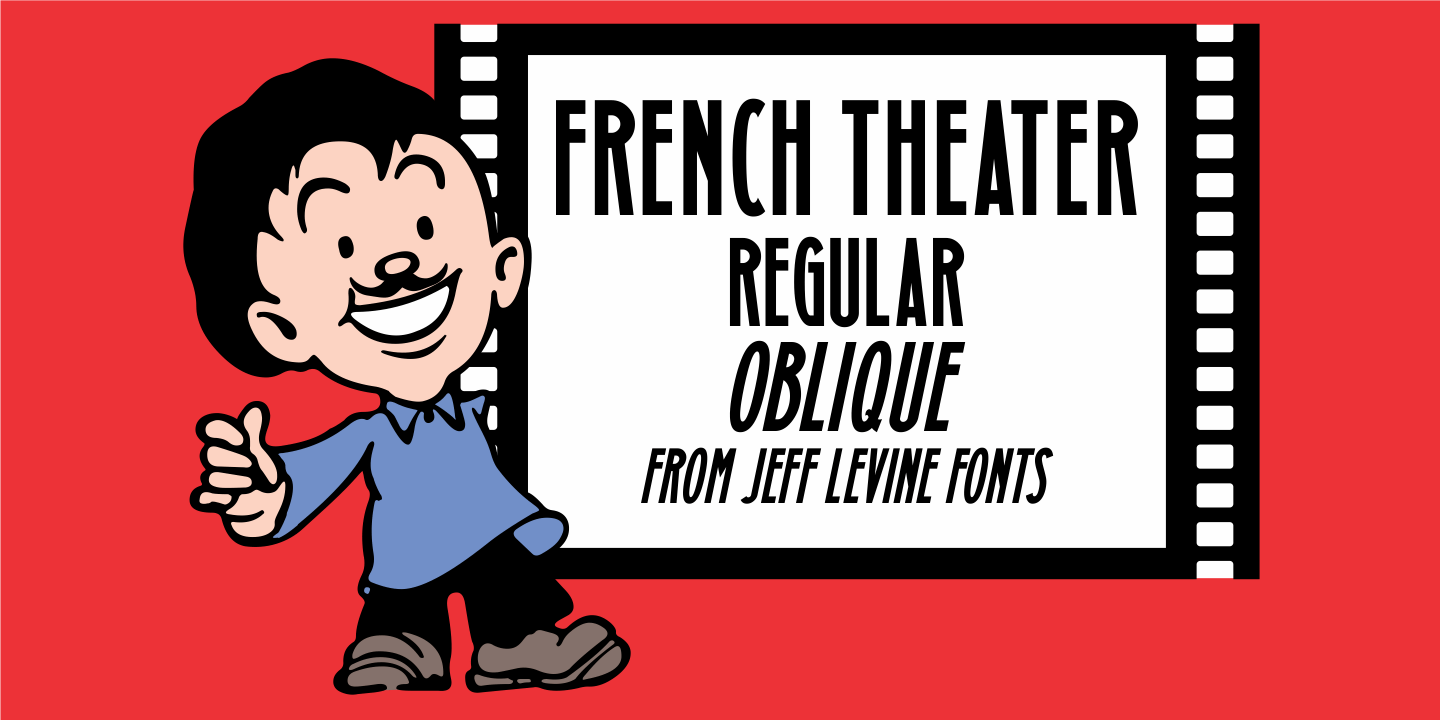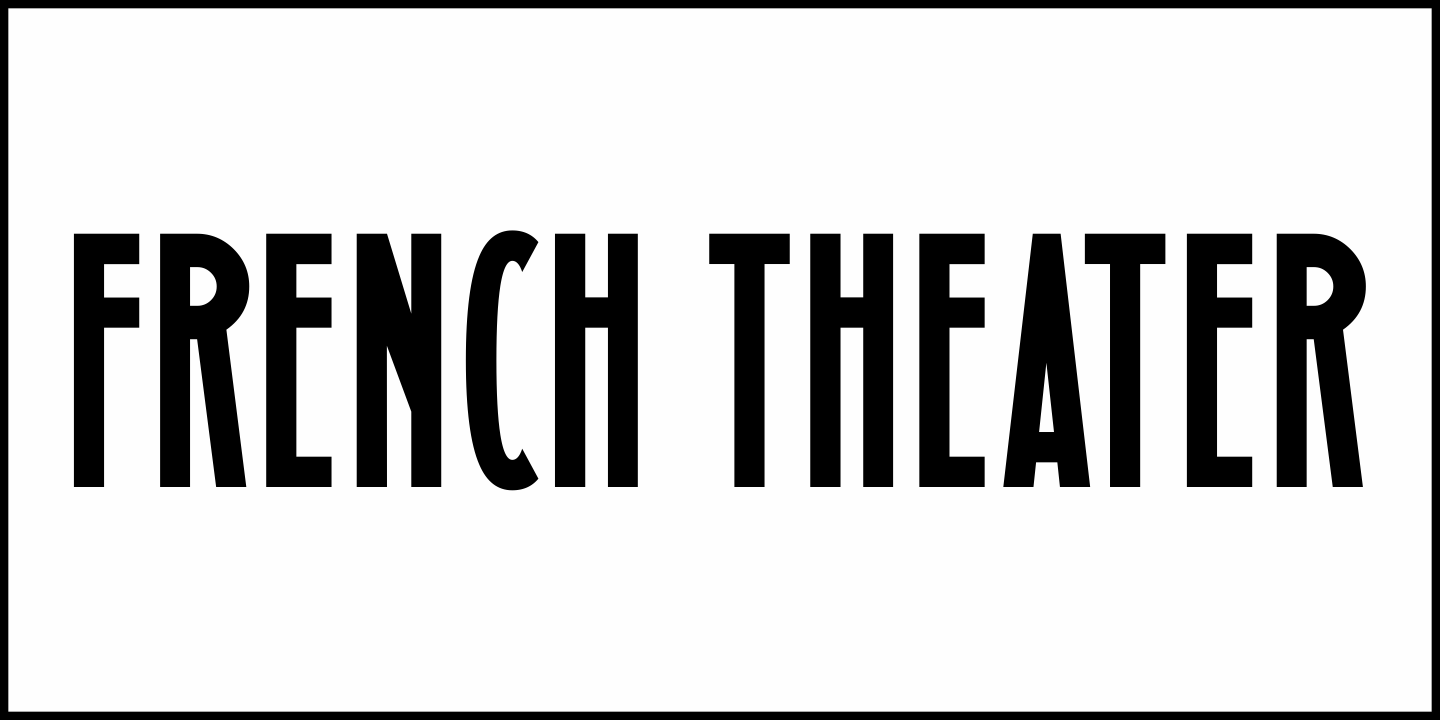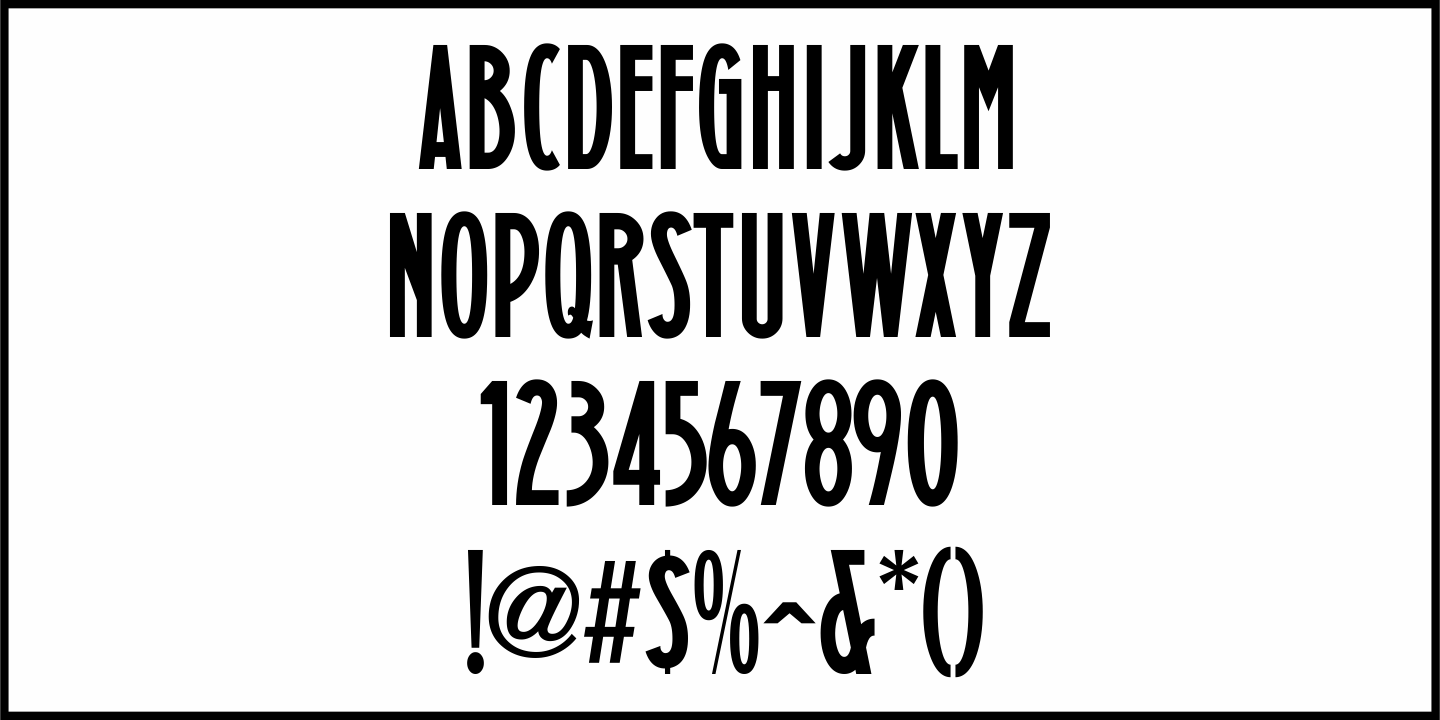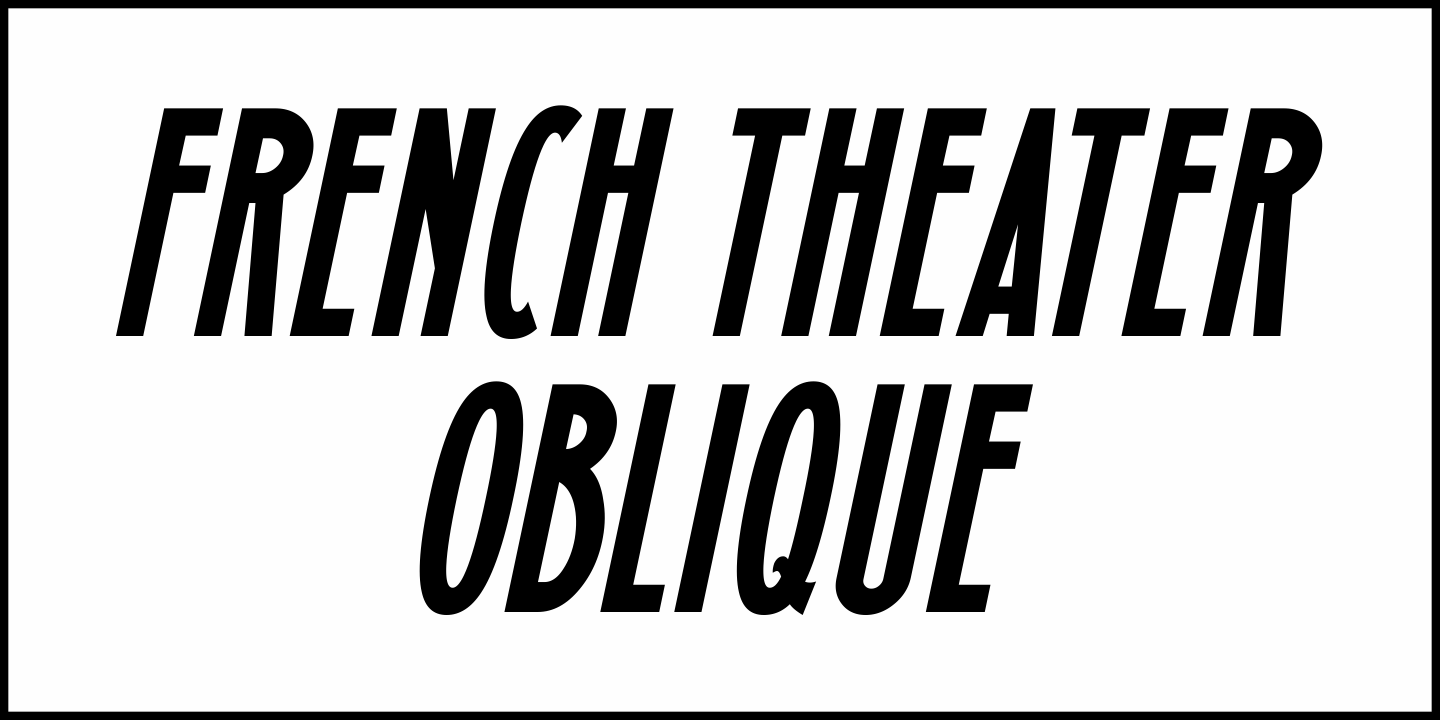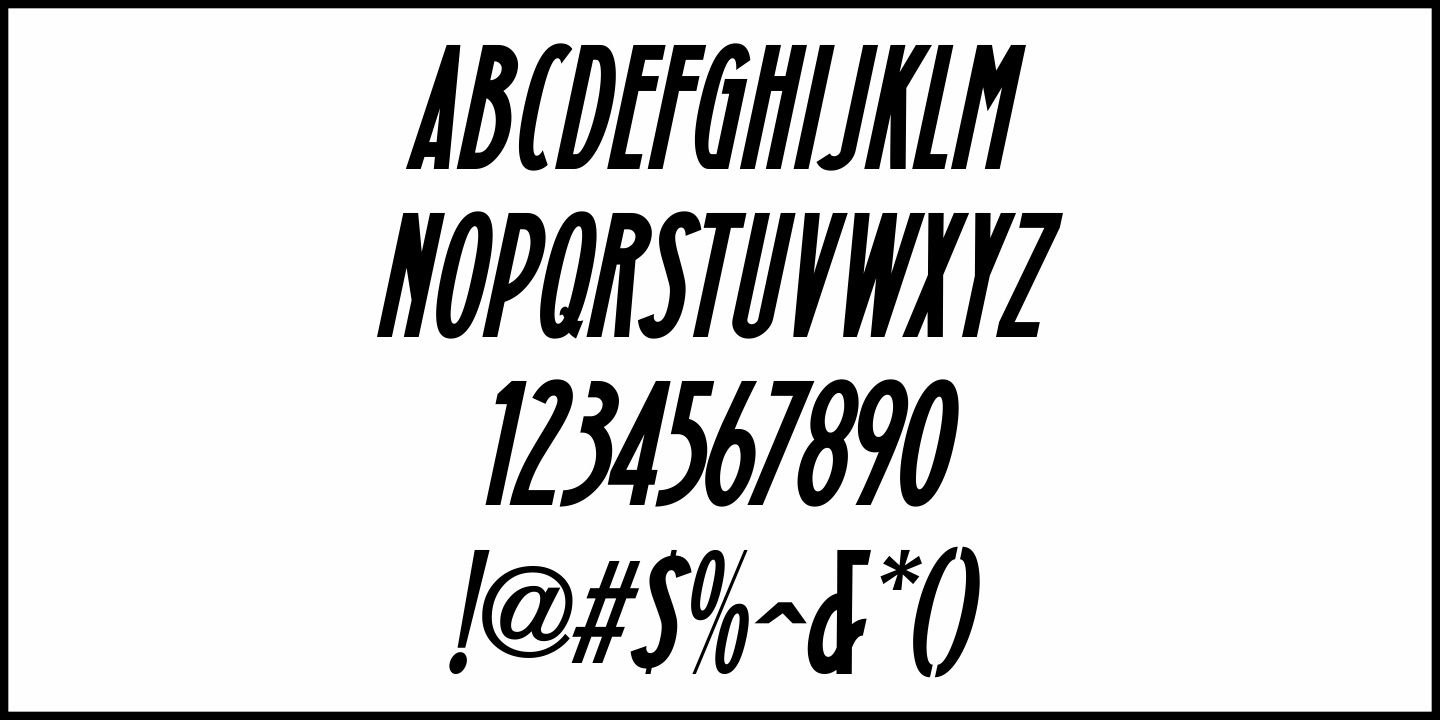
French Theater
Various ads in 1919 editions of the French film magazine "Le Courrier Cinématographique" ("The Film Mail") utilize a condensed Art Nouveuau sans serif typeface.
This is now available as French Theater JNL in both regular and oblique versions.
French Theater JNL Regular by Jeff Levine Fonts